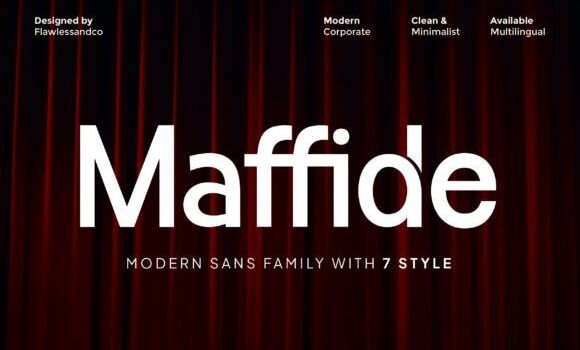
maffide
Maffide Font - Featured Image
Maffide Font – Free Download Introduction to Maffide Font Maffide is a modern sans serif family font designed to deliver a clean, professional, and contemporary look. 📸 Preview Gallery 6 images 📌 Product Name Maffide Font 👤 Author Flawless And